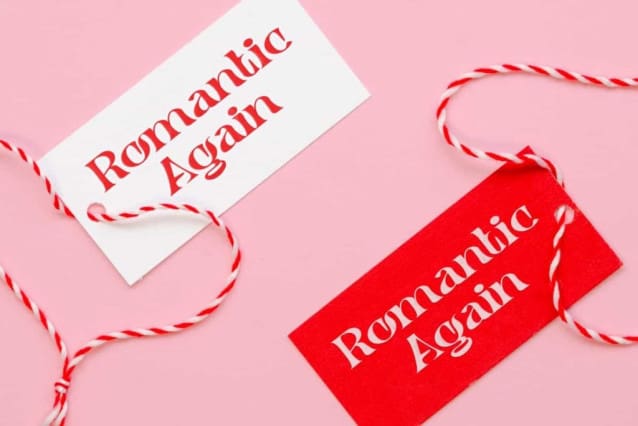
Romantic Again Font
Romantic Again Font is a vintage serif display font in romance love related theme. This font has bold characters with a unique shape to give a romantic looks. It will suits many designs, such as custom design, gift box, invitation, label, product packaging, quote, screen printing, signage, stationery, website, and more!
Romantic Again Font includes full set of Uppercase and Lowercase Basic Characters, Numerals, and Punctuation. This font is perfect for you who looking for lovely font, so it will be suitable for many industries, such as accessories and jewelry, advertising, beauty product, event or wedding organizer, fashion, florist, furniture, perfume, resort, restaurant, etc.